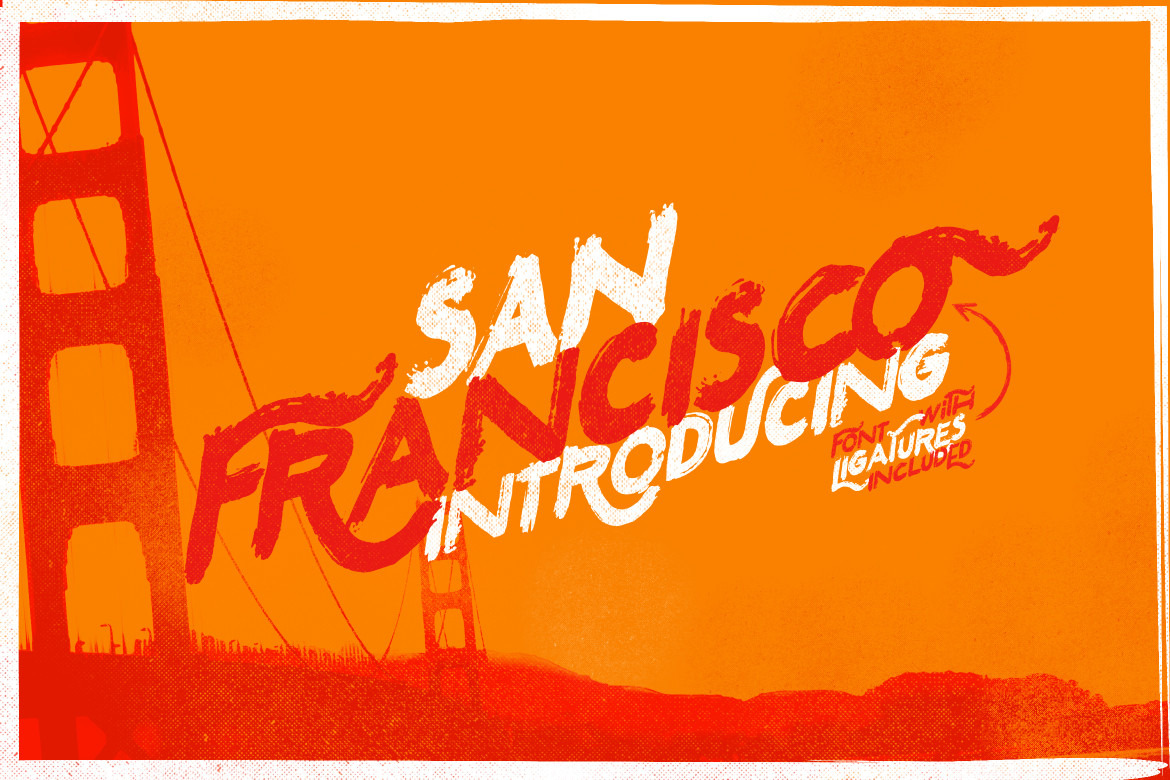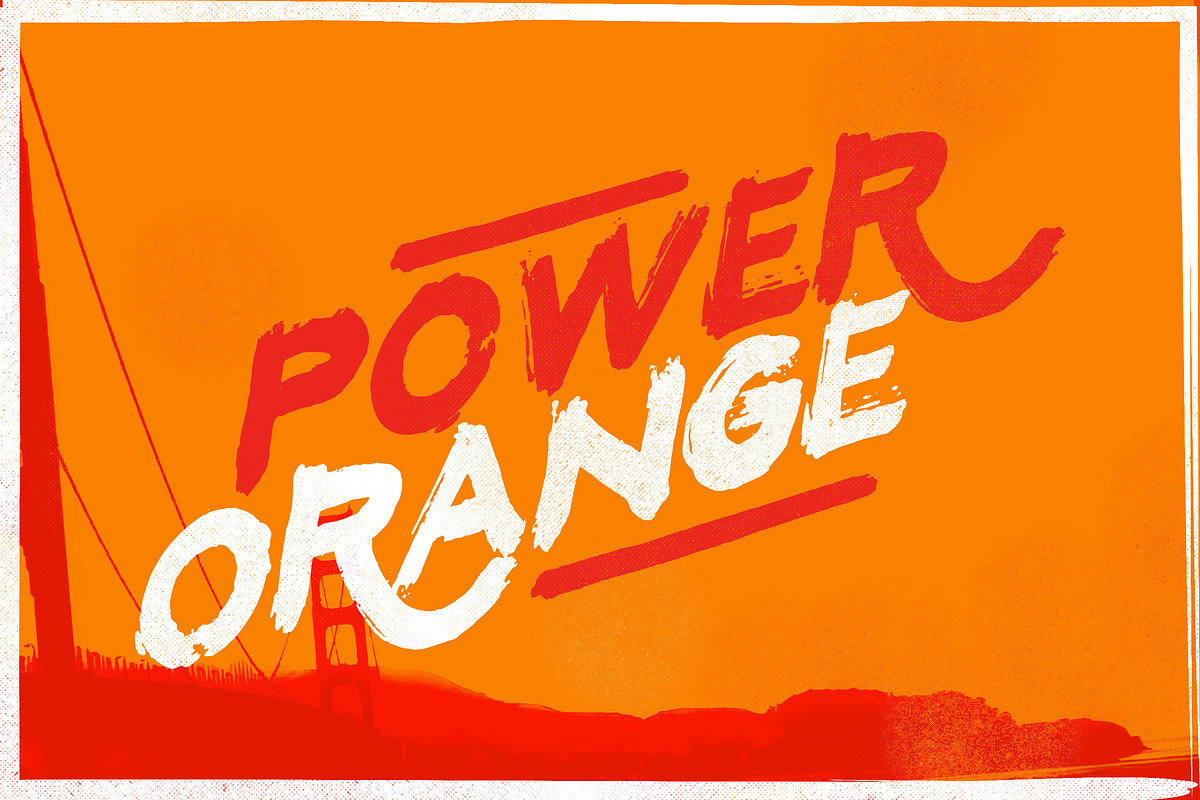
San Francisco Font
San Francisco Font is new font from Leo Supply Co, the font with simple, grunge, retro, vintage, experimental and versatile character font set.
- Come with 3 styles, a regular, tall and italic to create an option for the designs.
To create the beautiful combination, Mix and match the upper and lowercase letters and then mix with the alternative and ligature glyphs.
San Francisco Font includes a full set of capital and lowercase letters, as well as multi-lingual support, currency figures, numerals, punctuation and ligatures. Mix and match the upper and lowercase letters and throw in some memphis-style doodles to get exactly the look you want. then mix with the alternative glyphs
Ideal for loud messages. Made with flat marker adding realistic moves in it. Very interesting to use for logos, name tags, handwritten quotes, product packaging, merchandise, social media & greeting cards .Also, ideal to make t-shirts design and other clothing products.